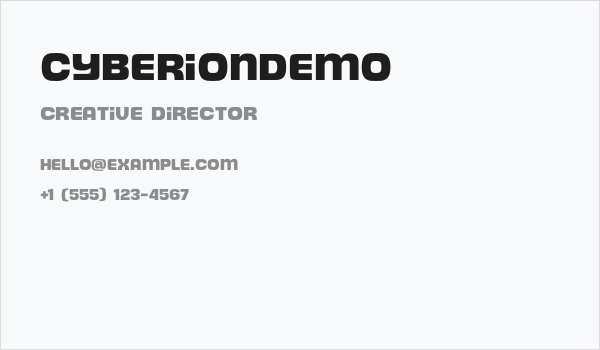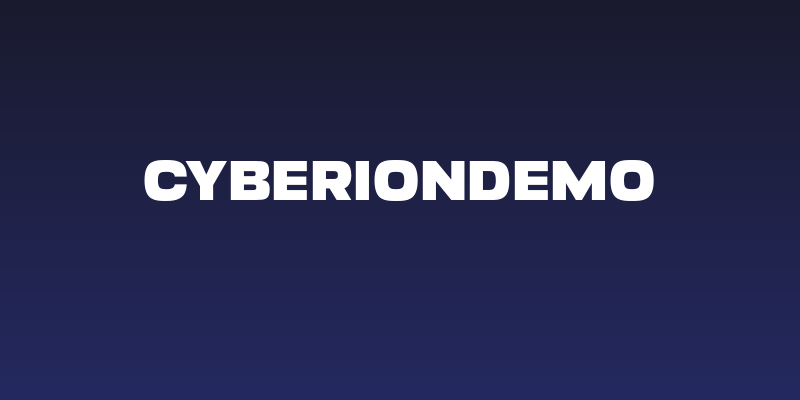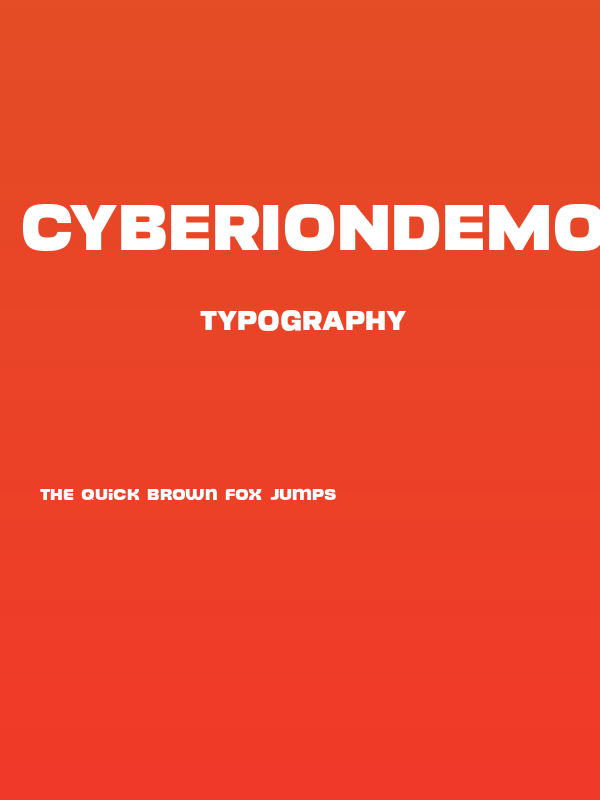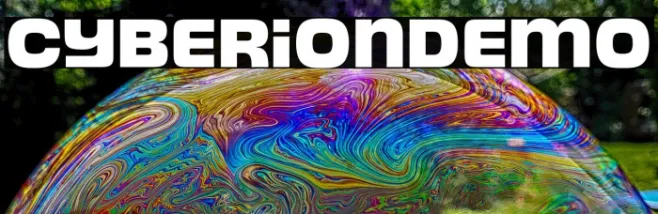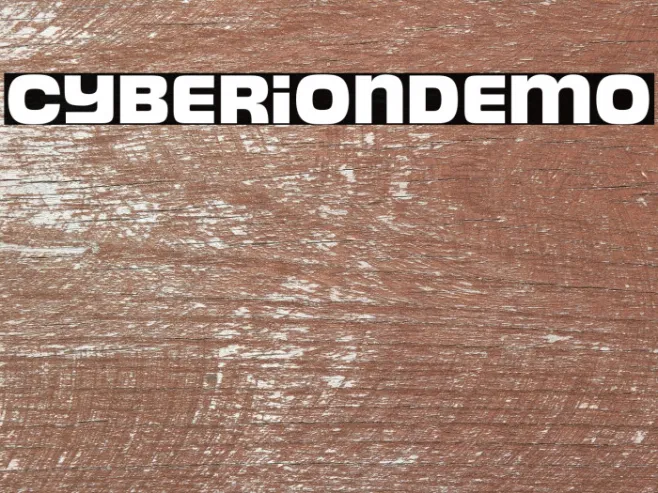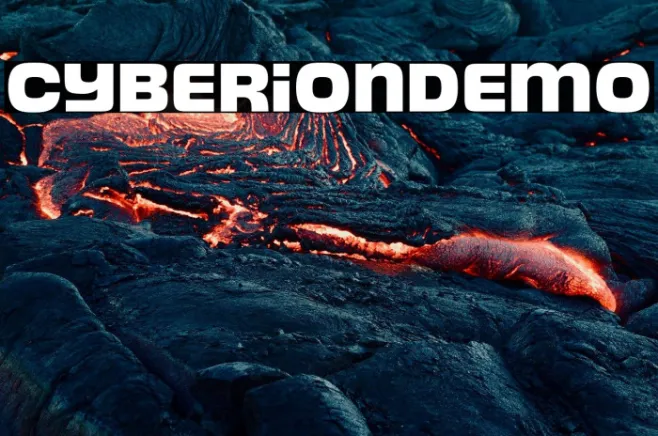
CyberionDemo Font
CyberionDemo Description
This font features a bold and robust design with strong geometric shapes and a modern aesthetic. The uppercase letters are uniform in height, creating a powerful and cohesive look. The lowercase letters maintain a similar weight and style, ensuring consistency across text. The numerals are clear and easy to read, with a slightly rounded appearance that adds a touch of softness to the otherwise strong lines. Special characters are designed to match the boldness of the letters and numbers, making them stand out effectively. This font is ideal for projects that require a strong visual impact.